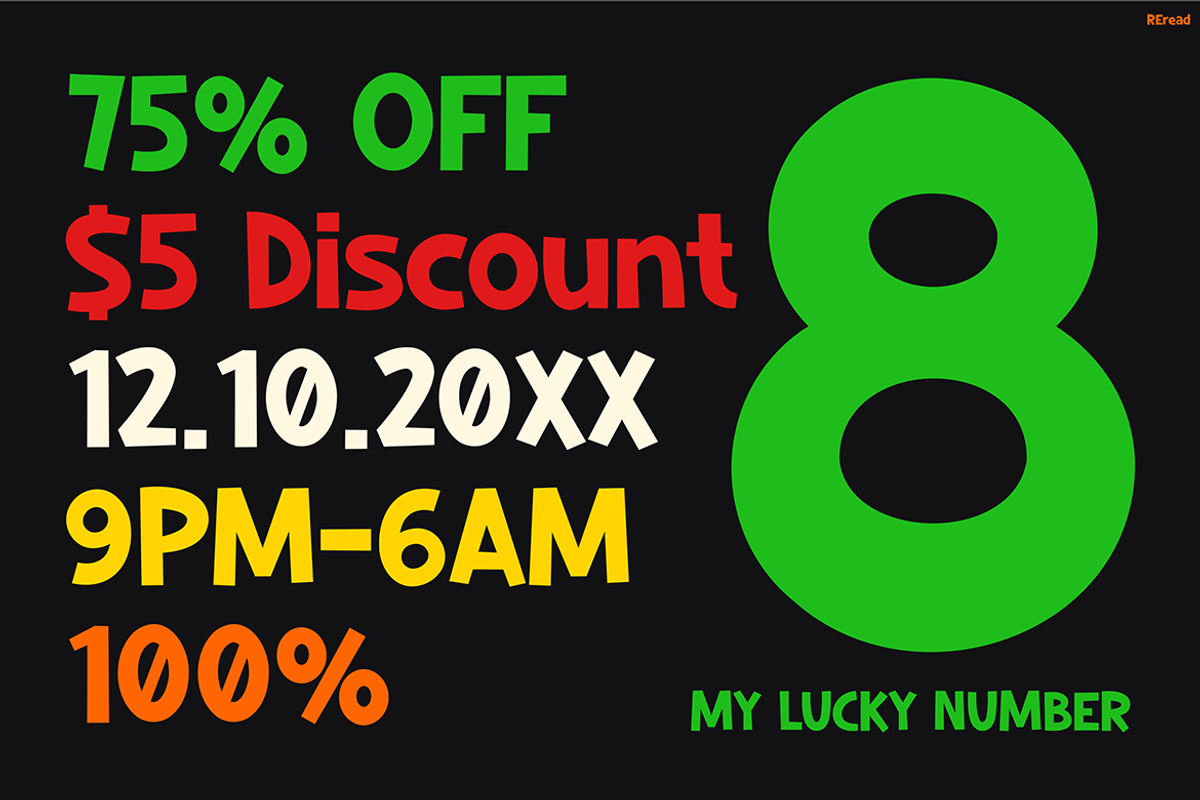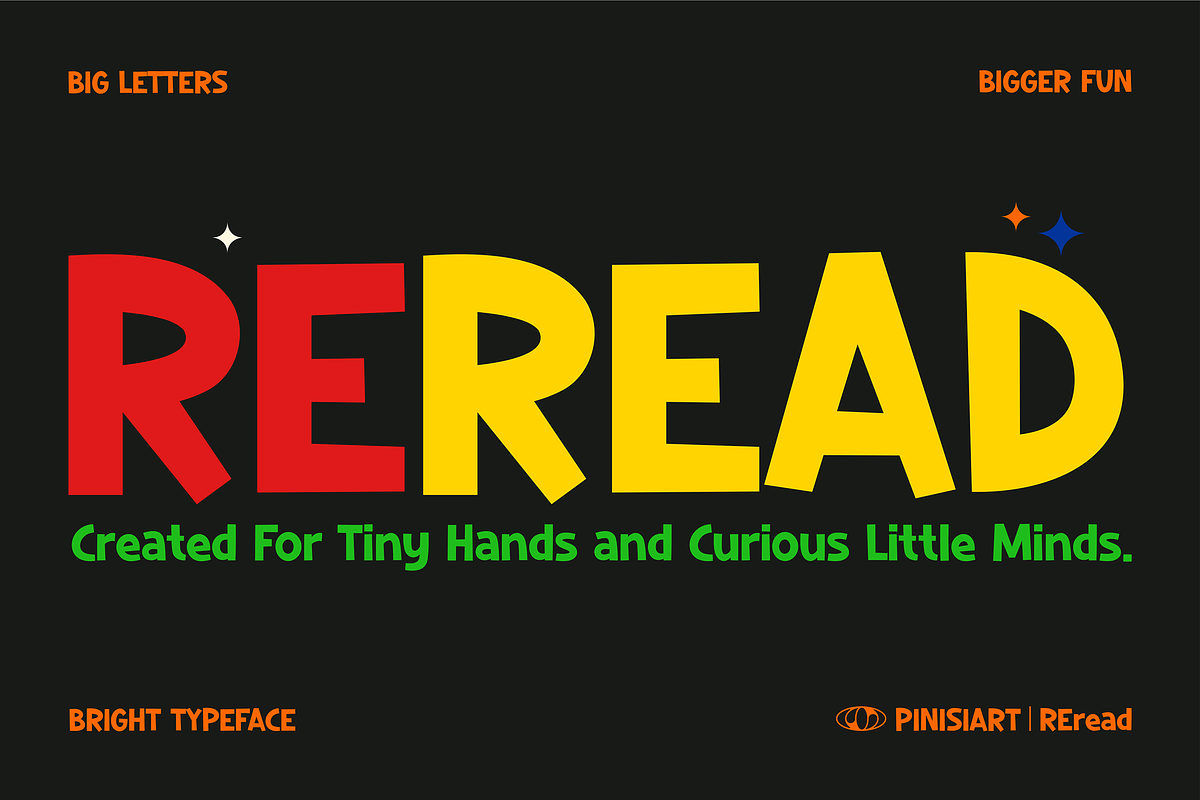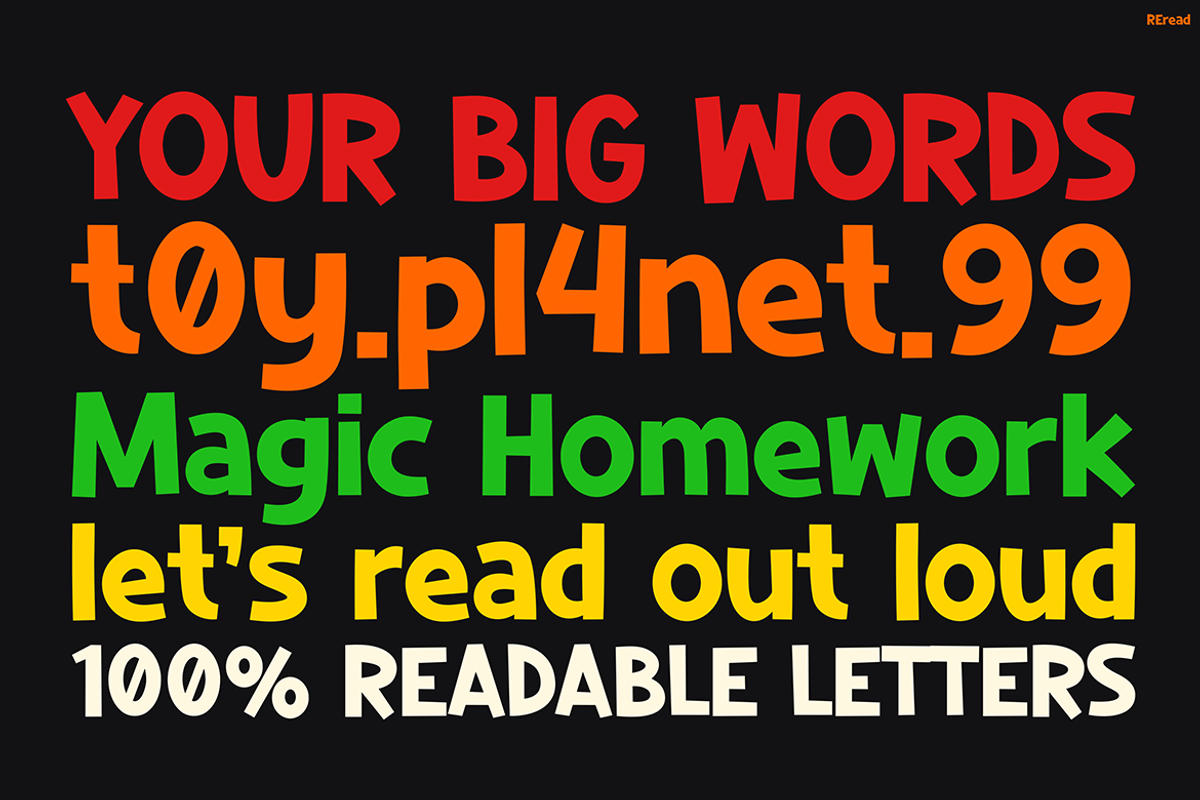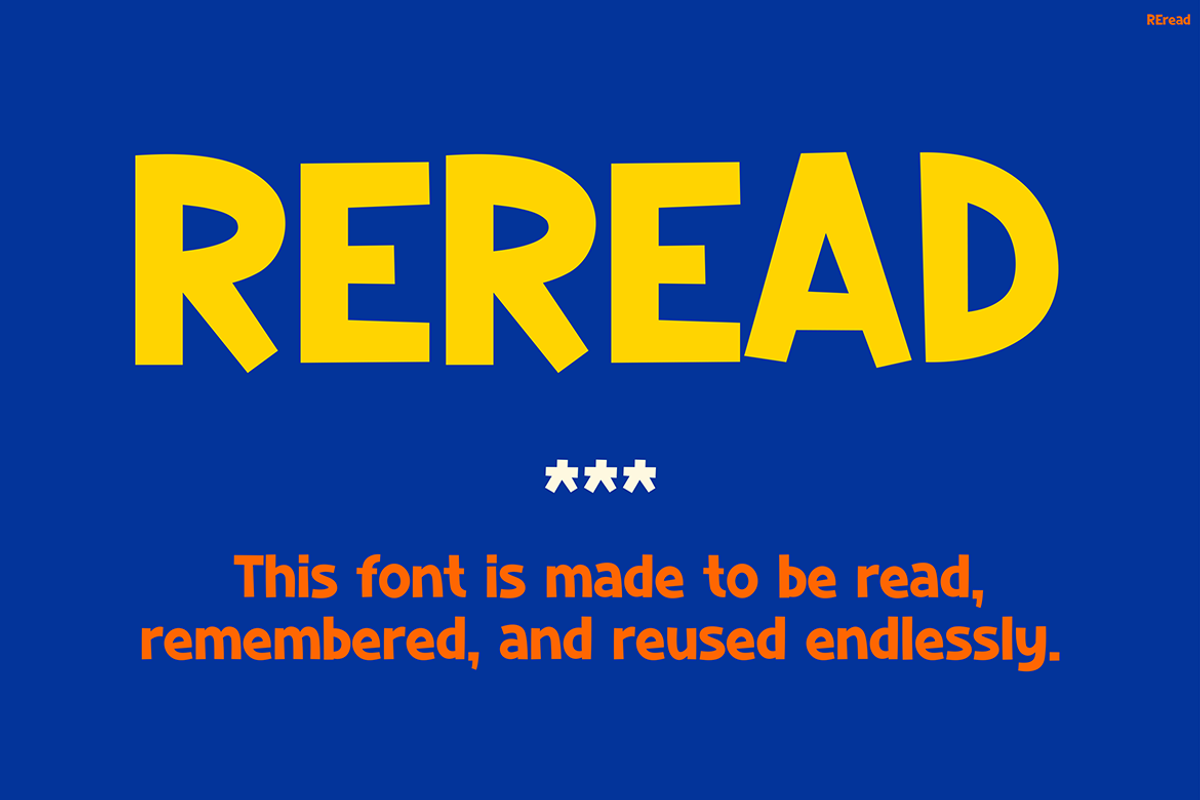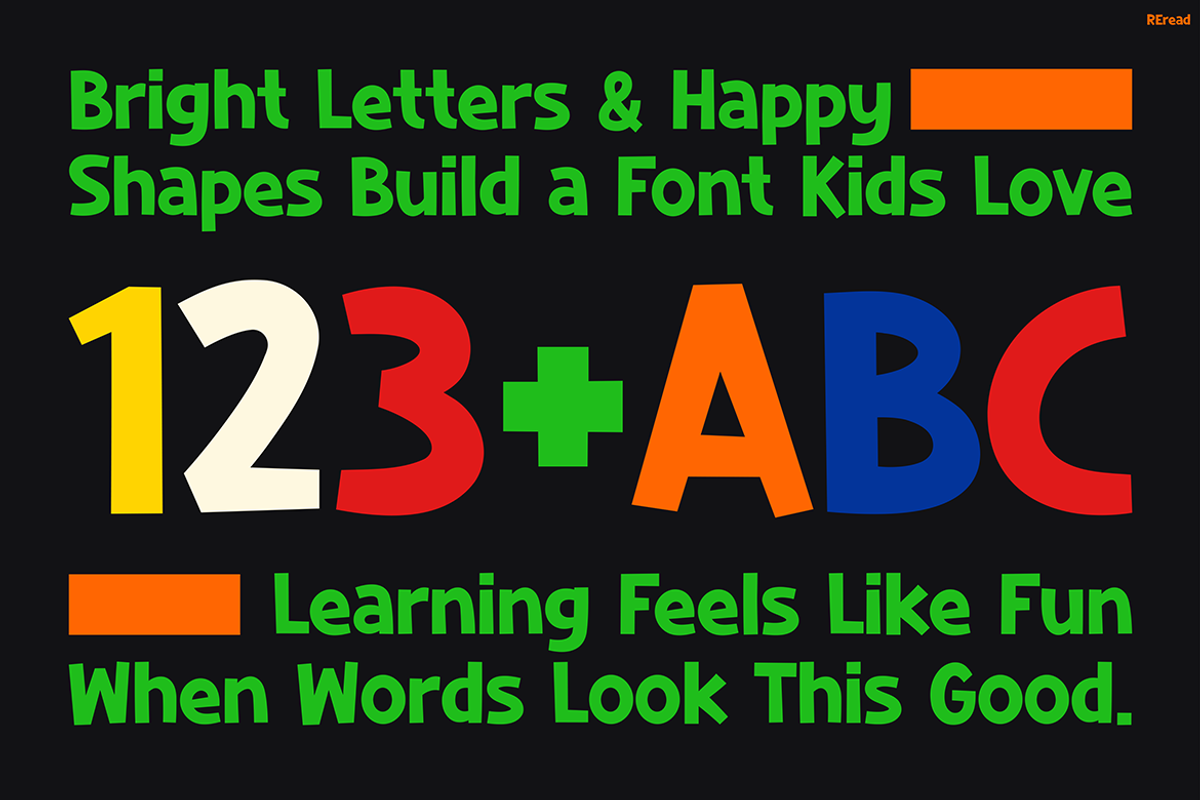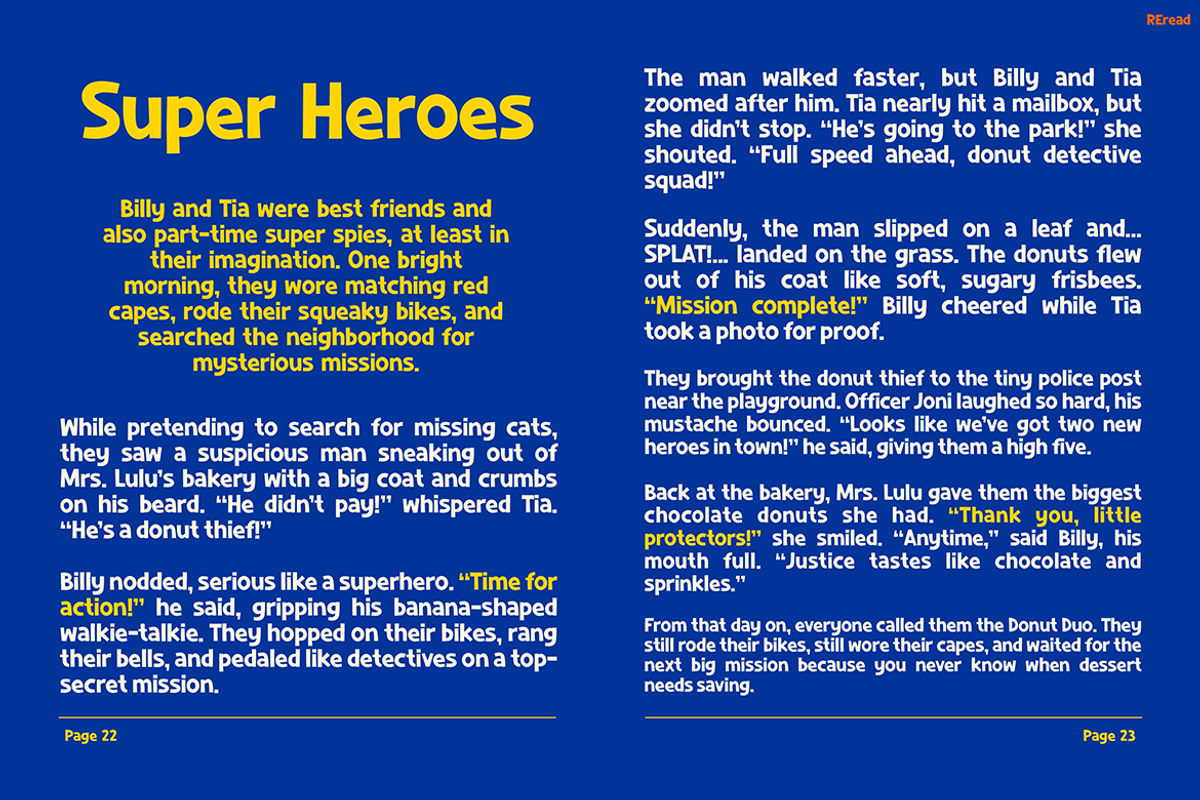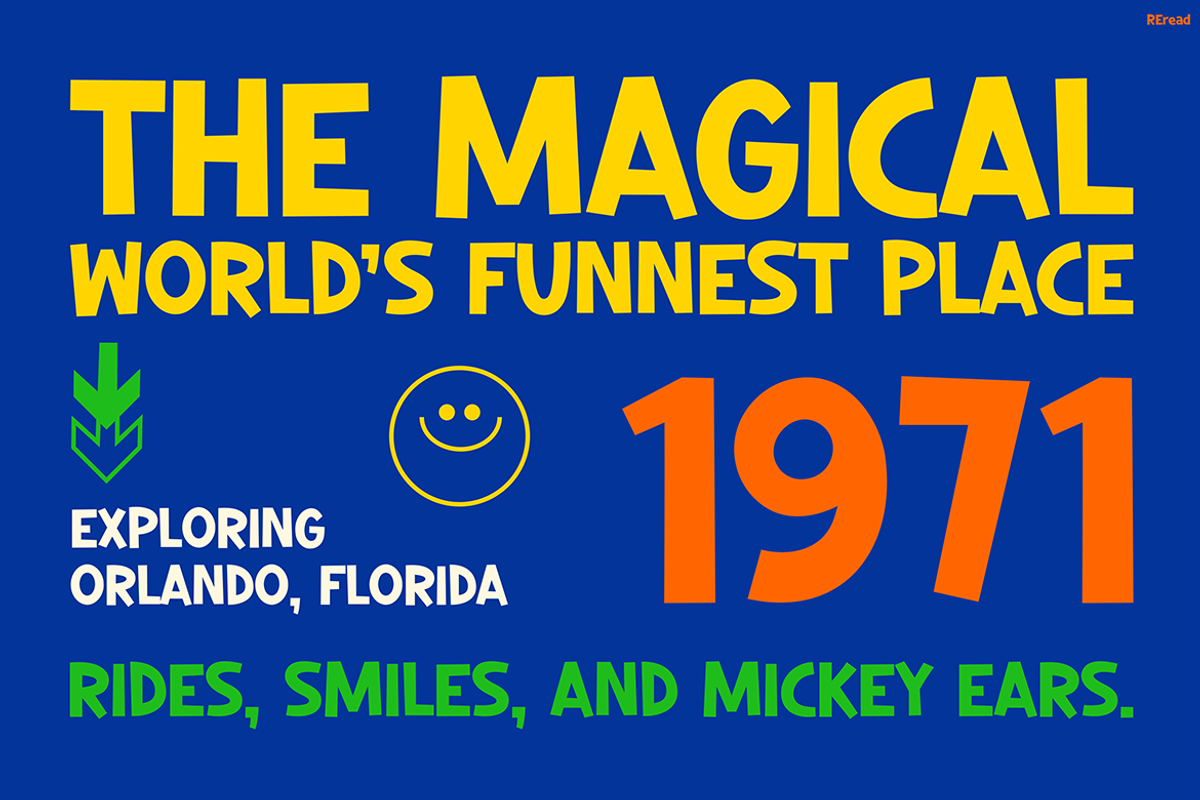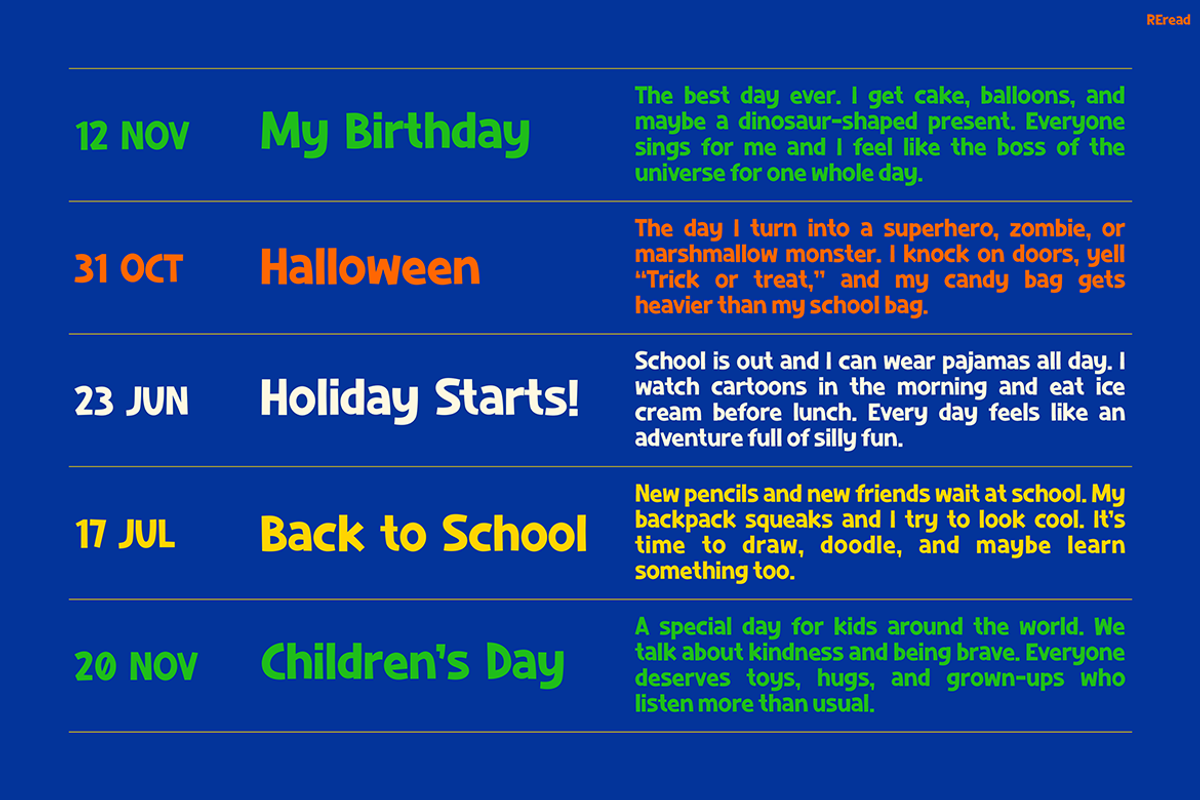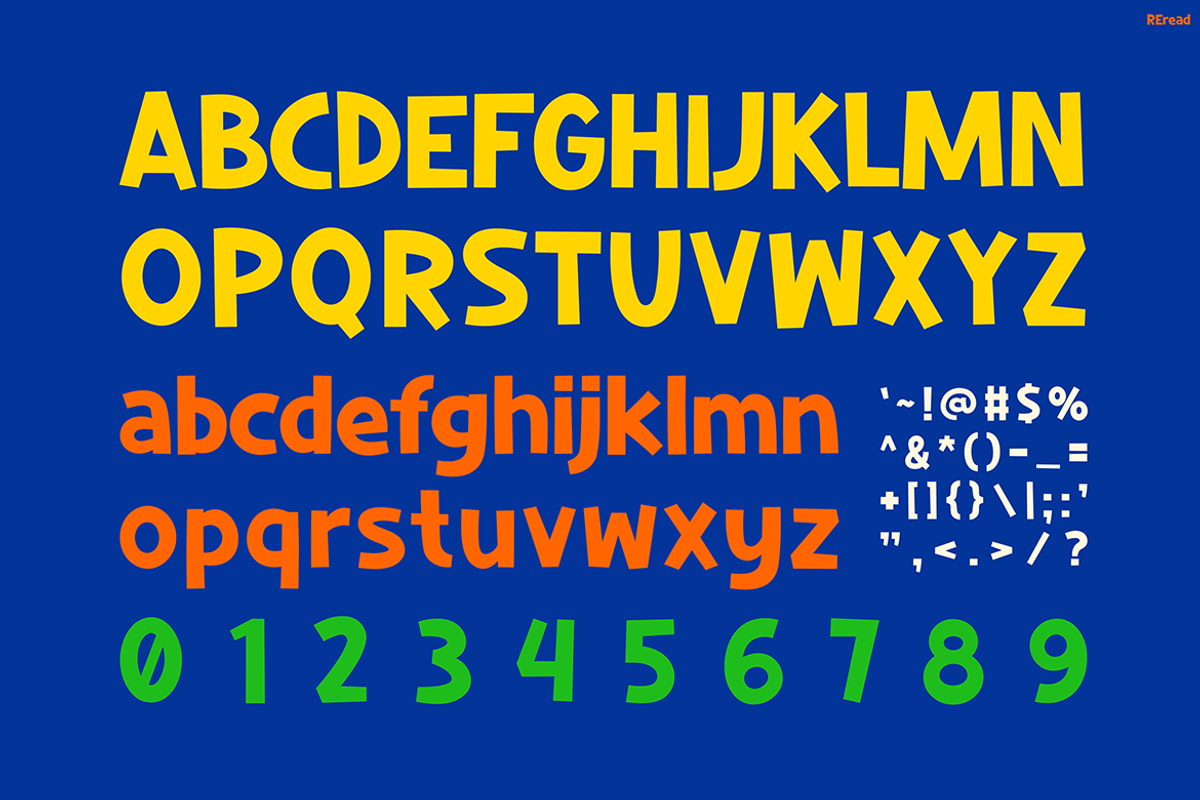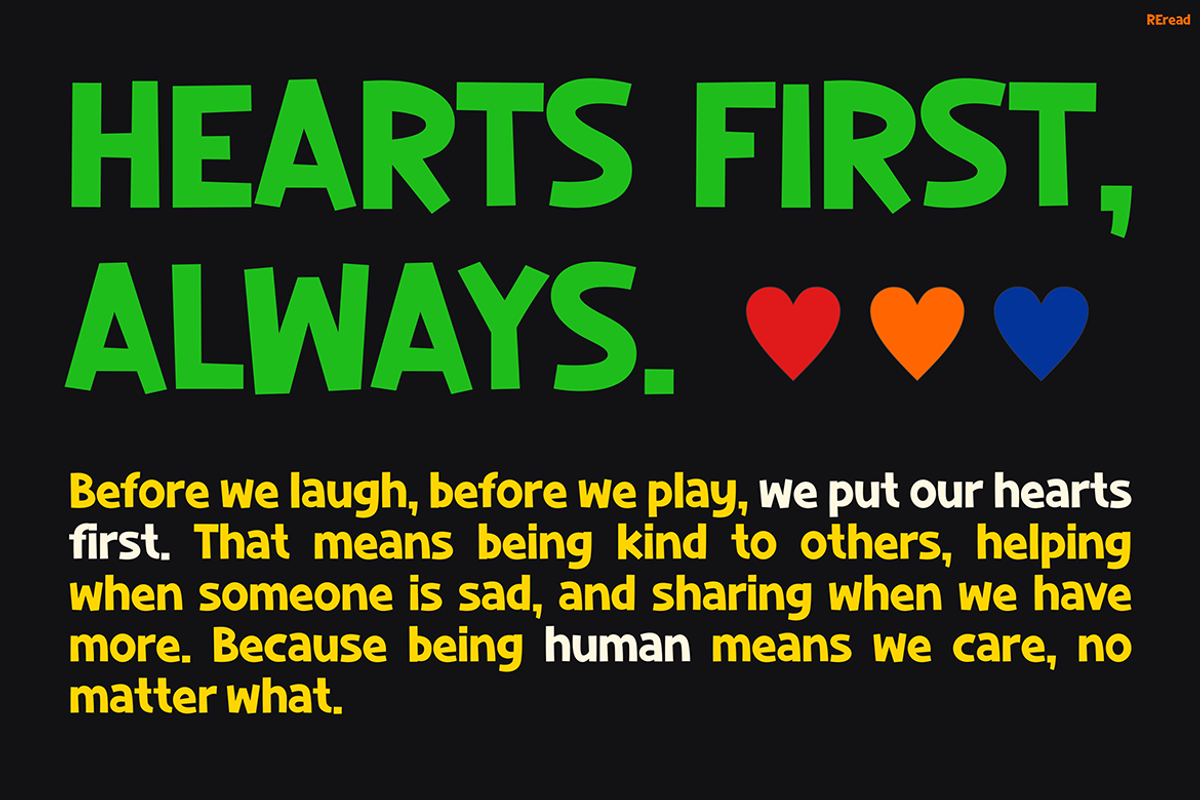
Reread
Kids Font Reread is a joyful and highly legible typeface that instantly grabs attention. Designed with tiny readers in mind, it brings energy to every letterform through bouncy shapes, chunky proportions, and a colorful personality. Not only is it fun to look at, but it also helps children recognize letters more easily. With rounded edges and bold structure, this font feels approachable, making learning to read feel like play. Moreover, the quirky alignment and varied stroke widths add charm without sacrificing clarity.
From A to Z and beyond, Kids Font Reread offers more than just letters—it includes vibrant numerals, punctuation, and icons that keep kids engaged. Whether you’re making a learning tool or a promotional banner, this font adapts beautifully to your creative vision. In addition, it maintains high readability across both print and digital media. Because of its thoughtful design, it’s especially helpful for young readers, including those with early literacy